Finding the perfect typeface for wellness and lifestyle projects can make all the difference in your designs. That’s where yoga fonts come in. These fonts are calm, elegant, and versatile, making them perfect for yoga studios, meditation centers, wellness brands, and holistic lifestyle blogs. You can also explore a wider range of free fonts to discover even more styles that suit your creative needs.
Whether you’re creating a logo, a flyer, or a social media post, the right yoga font helps convey peace, balance, and mindfulness. In this collection, we’ve gathered a range of free yoga fonts that combine beauty with readability. Explore these yoga fonts and find the one that best matches your creative vision.
Free Yoga Fonts
Rellieva
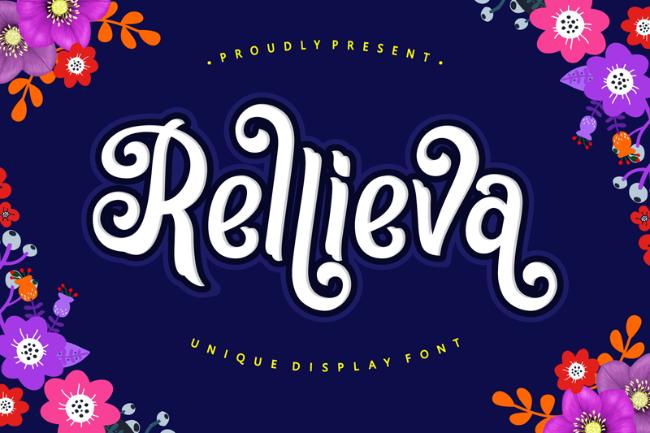
Rellieva is a graceful yoga font with flowing letterforms that create a calm and balanced aesthetic. Perfect for yoga studio branding, invitations, or mindful lifestyle designs, this typeface adds elegance while keeping readability intact.
Chameleon
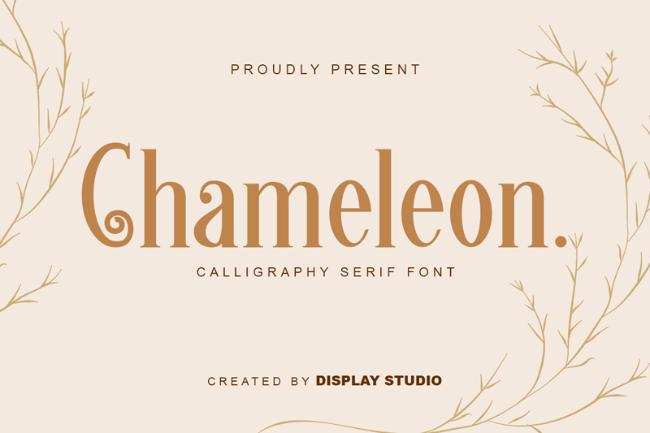
Chameleon offers a modern and versatile look that blends style with simplicity. As a yoga font, it works beautifully for posters, class schedules, and meditation quotes, providing a soft yet confident touch.
Darkones
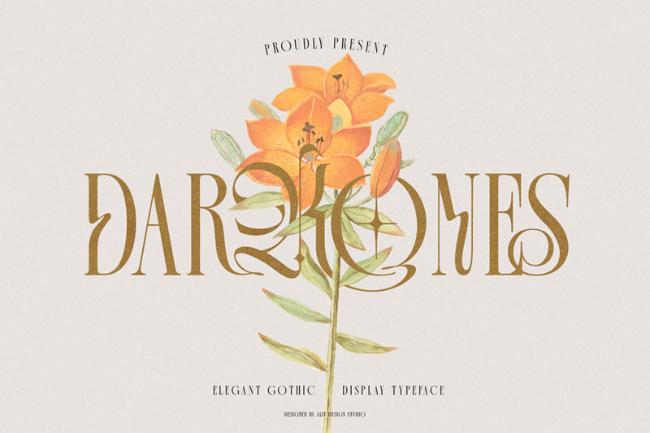
Darkones is a bold yet refined yoga font that brings a grounding energy to your designs. Its unique curves and balanced strokes make it an excellent choice for yoga apparel or wellness-themed branding.
Milven
Milven features clean lines and a smooth flow, making it an elegant yoga font for minimalistic branding. Ideal for yoga studios, wellness blogs, and spa identities, it radiates calmness and sophistication.
Chicago
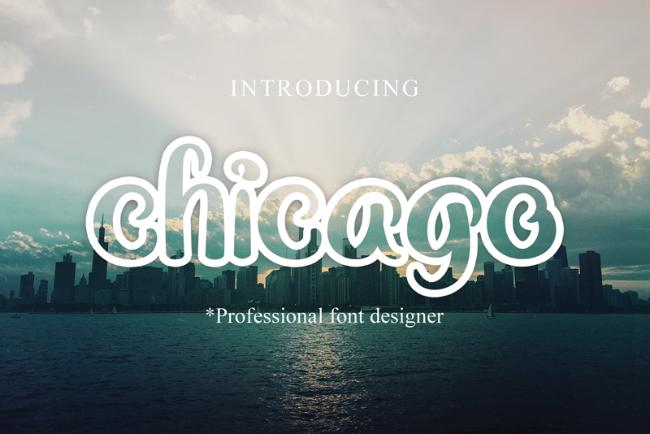
Chicago brings a chic and modern vibe to your designs. As a yoga font, it’s ideal for promotional material, yoga retreats, and holistic health branding that requires a stylish yet balanced touch.
Merrycle
Merrycle is a joyful and flowing yoga font with a handwritten charm. Its organic feel makes it suitable for yoga quotes, mindful product packaging, or wellness social media posts.
Traditian
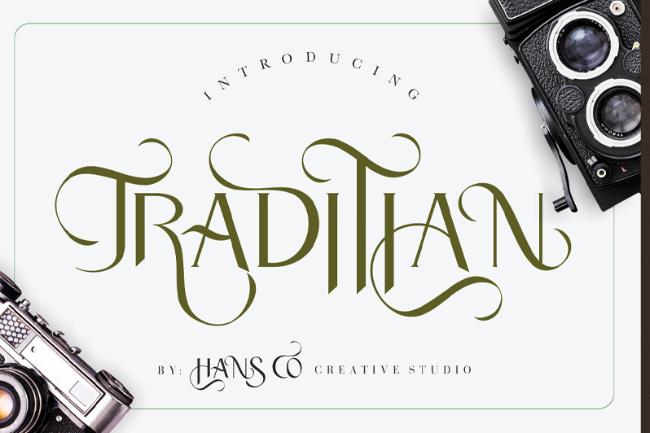
Traditian carries a timeless and elegant design, making it a refined yoga font. Its classic style works well for yoga magazines, serene branding, and high-end wellness projects.
Visaka
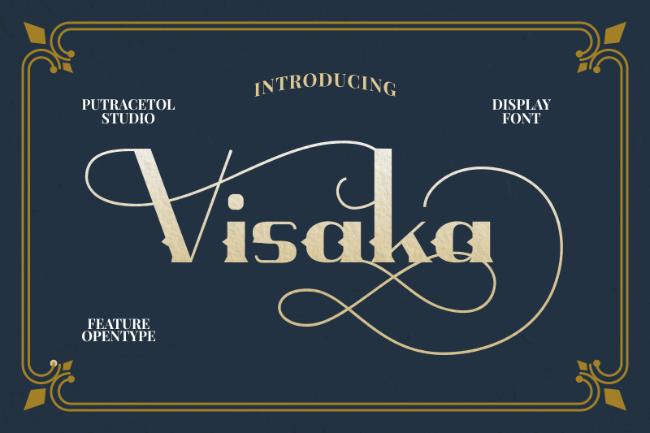
Visaka is a smooth and balanced yoga font that embodies serenity and harmony. Ideal for yoga retreat flyers, holistic wellness branding, and meditation-themed artwork.
Astone Royal
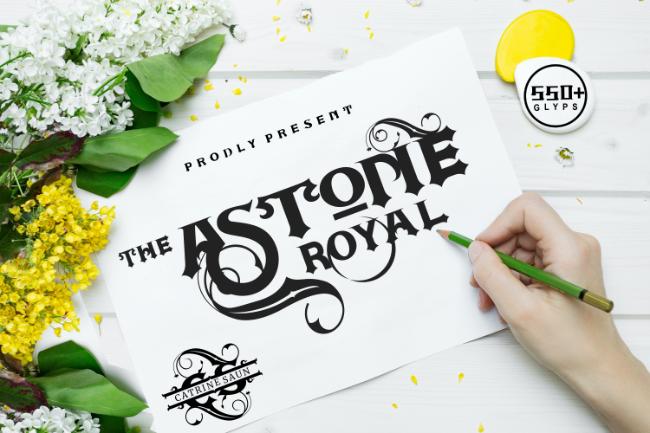
Astone Royal combines elegance with a royal aesthetic, making it a sophisticated yoga font. It’s excellent for high-end branding, yoga event invitations, and luxury wellness products.
Vocago
Vocago is a stylish yoga font with a natural flow. It’s perfect for logos, branding, or quotes that require a spiritual and artistic feel.
Rosaline
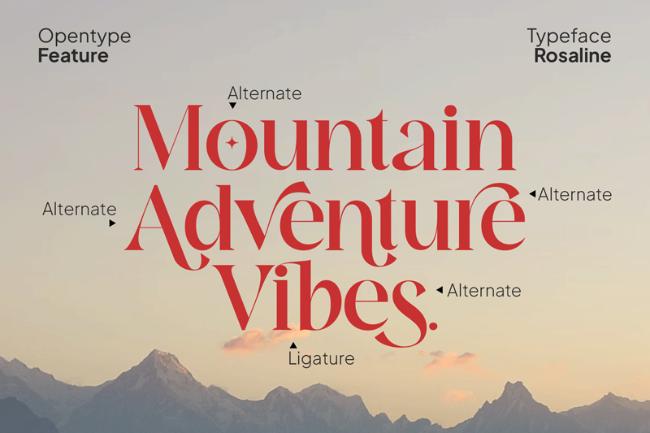
Rosaline is a romantic and elegant yoga font that pairs well with soft imagery. It’s suitable for yoga-inspired branding, social media posts, and wellness packaging.
Bellavoir Serif
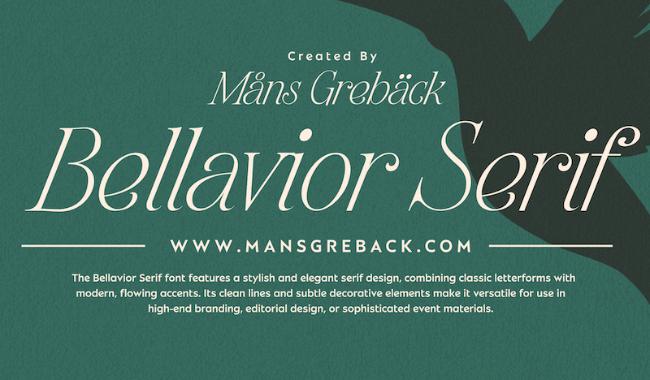
Bellavoir Serif is a refined serif-style yoga font with an elegant and calming feel. Great for yoga magazines, branding, and meditation guides.
Avigea
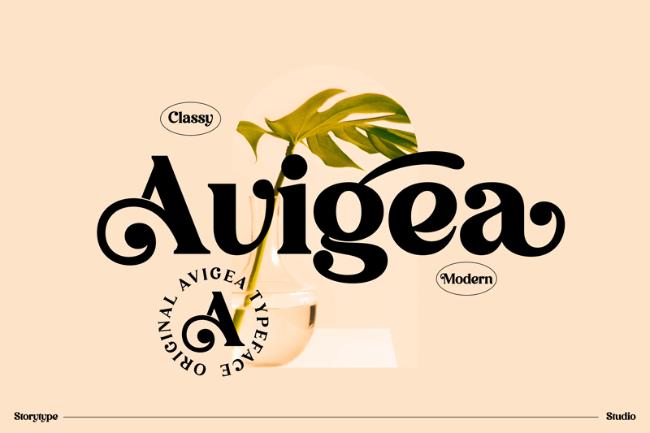
Avigea is a sophisticated yoga font with clean and graceful lines. It’s an excellent choice for luxury yoga brands, wellness studios, and mindful design projects.
Kristal
Kristal shines with its modern elegance, making it a sleek yoga font. Perfect for yoga event branding, flyers, or holistic wellness campaigns.
Ophelia
Ophelia is a soft and artistic yoga font with flowing details. It works beautifully for yoga apparel, mindful social media graphics, and meditation journals.
Roze Belinda
Roze Belinda is an elegant and decorative yoga font that exudes beauty and calmness. Ideal for invitations, yoga event posters, or wellness blogs.
Mermaid
Mermaid is a unique yoga font that carries a soft and mystical vibe. It’s excellent for yoga retreat branding, wellness content, or meditation visuals.
Sunflower
Sunflower is a bright and positive yoga font that radiates energy and warmth. Perfect for yoga event flyers, wellness campaigns, or lifestyle branding.
Arsenica
Arsenica is a stylish serif yoga font with refined curves and balanced details. Great for branding, yoga book covers, or holistic lifestyle designs.
Belgiano Serif
Belgiano Serif is a classic yoga font that pairs tradition with elegance. It’s ideal for mindful branding, yoga magazines, and inspirational quote designs.
Classy Vogue
Classy Vogue is a chic and modern yoga font that suits branding projects seeking sophistication. It’s perfect for yoga apparel, wellness studios, and retreats.
Velista
Velista is a flowing and artistic yoga font with a modern twist. Use it for wellness product packaging, yoga branding, or holistic social media graphics.
Safira March
Safira March is a refined and creative yoga font that blends elegance with readability. It’s a great option for yoga studio logos, wellness blogs, and event branding.